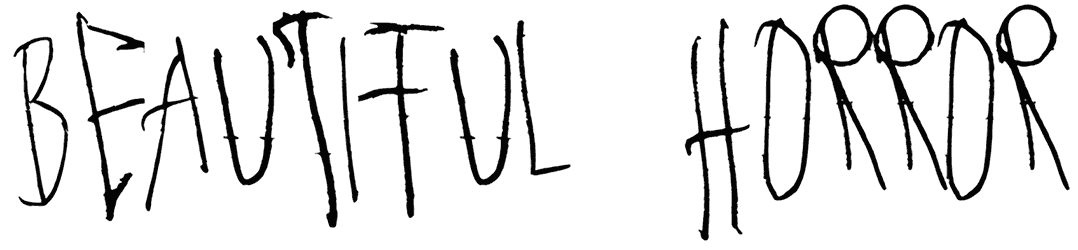
Beautiful Horror Font
Nothing can make you feel the scary tone of content more than deformed and thin letters. Beautiful Horror is a brilliant horror font that can easily achieve what you need it for.
This crazy font provides you with both uppercase and lowercase alphabets, but it lacks numbers and punctuation marks. Resource Boy is the only source you need to find the best freebies to help you in your projects, from fonts to flyers and mockups.